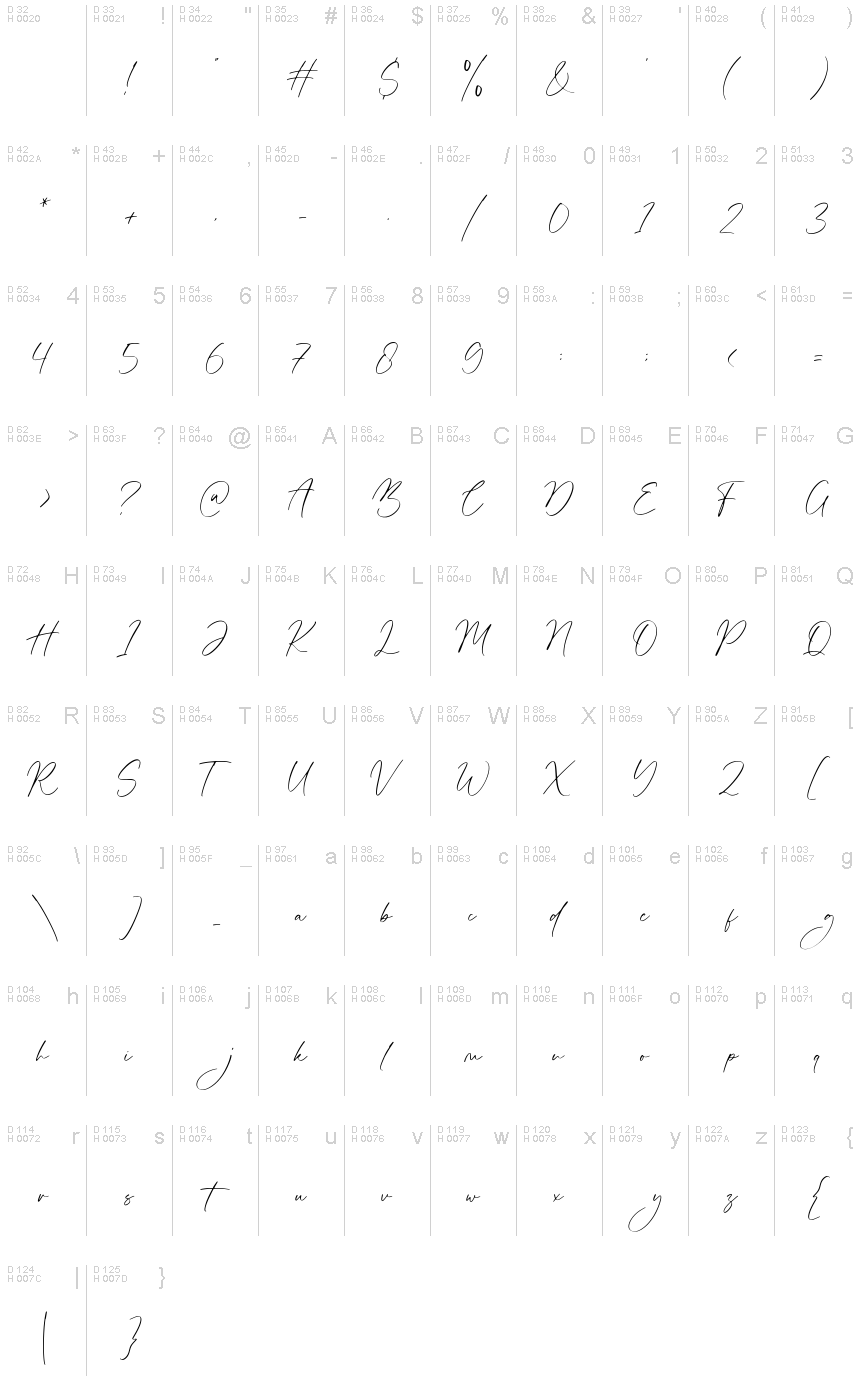
Brilliant
Brilliant, a captivating handwritten font crafted by Aestherica Studio, effortlessly blends elegance and personality. This light-weighted masterpiece exudes a sense of warmth and authenticity, inviting the viewer to experience a delightful blend of individuality and sophistication. The flowing, organic strokes and subtle variations create an alluring, handcrafted aesthetic, evocative of a personal touch.
Brilliant's versatility makes it a compelling choice for a wide range of design applications. Its unique character and charming appeal lend themselves beautifully to branding, packaging, and editorial projects, infusing a touch of artistry and personalization. Whether designing invitations, greeting cards, or even logo treatments, Brilliant's versatility shines through, elevating the overall aesthetic and conveying a sense of timeless, handcrafted elegance.